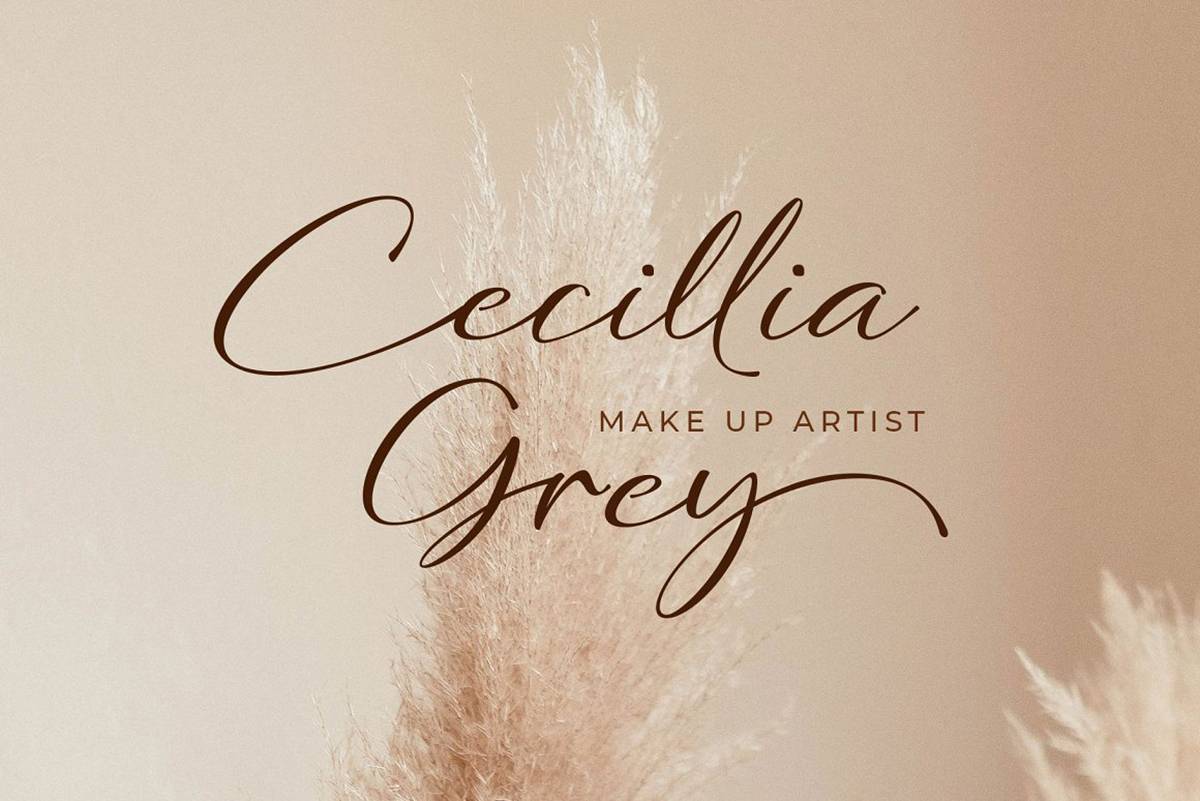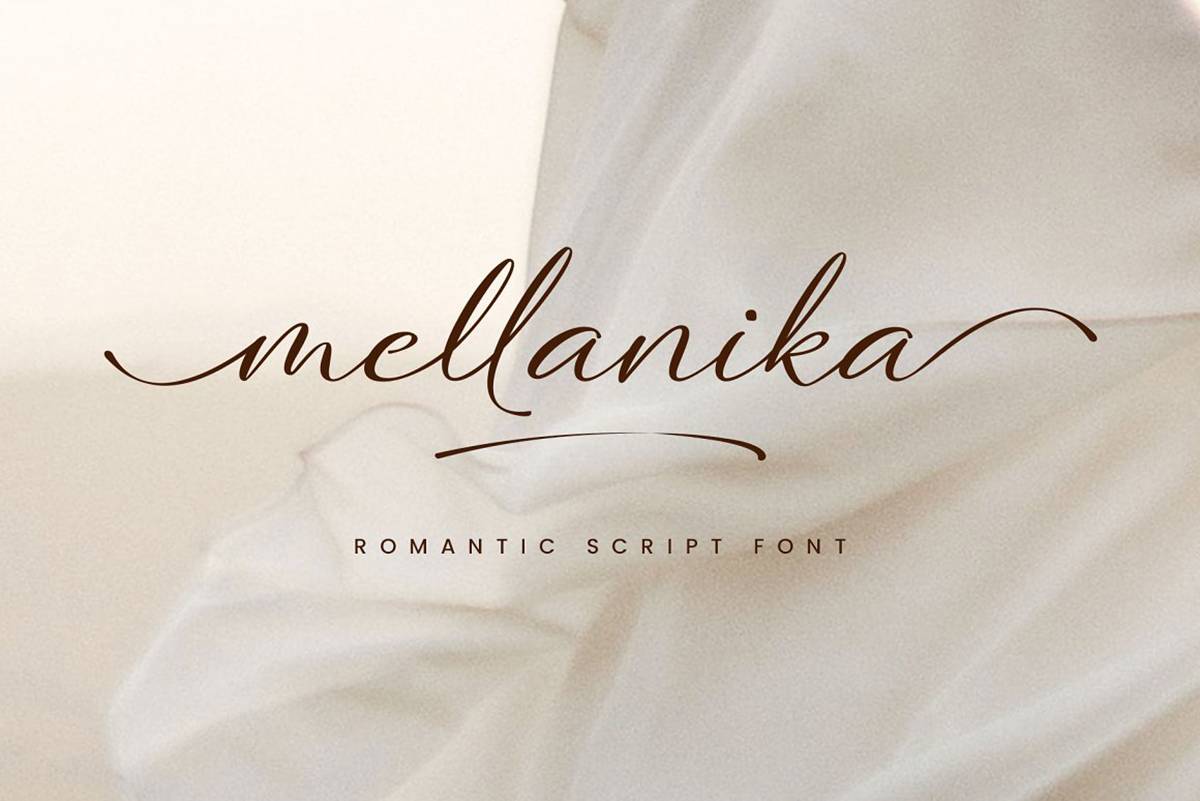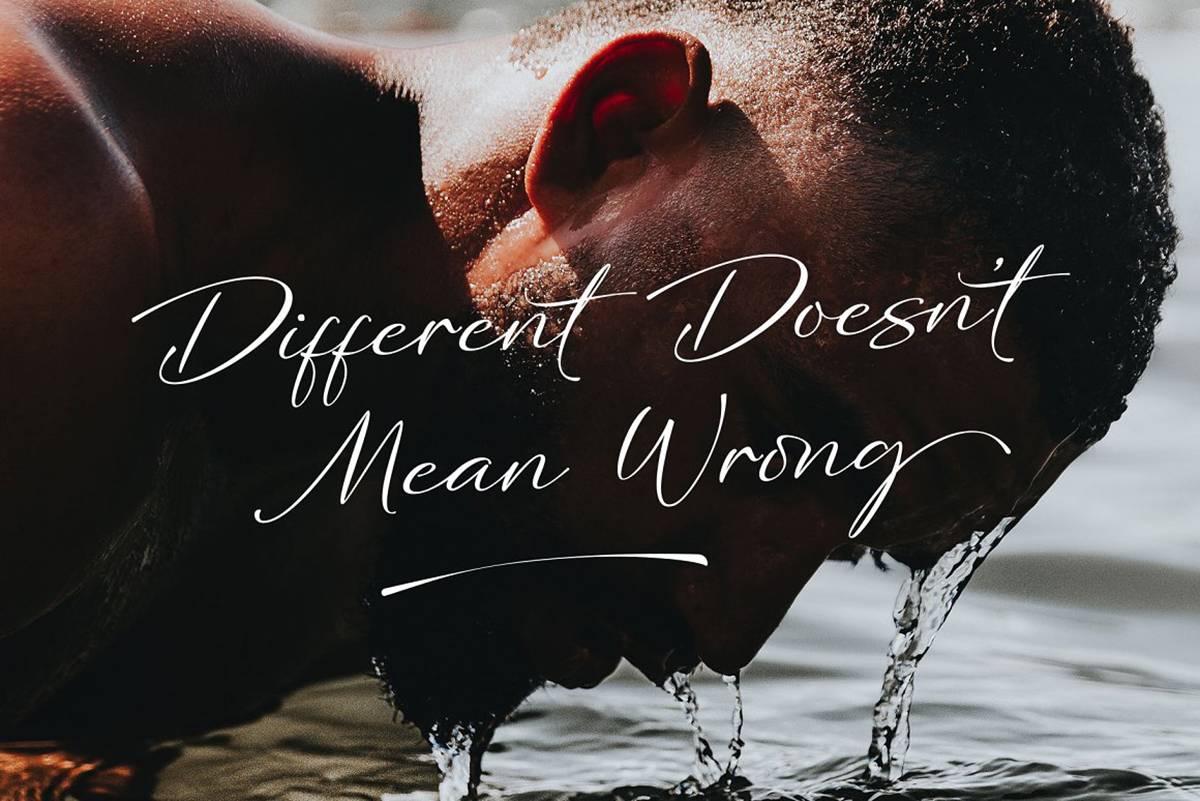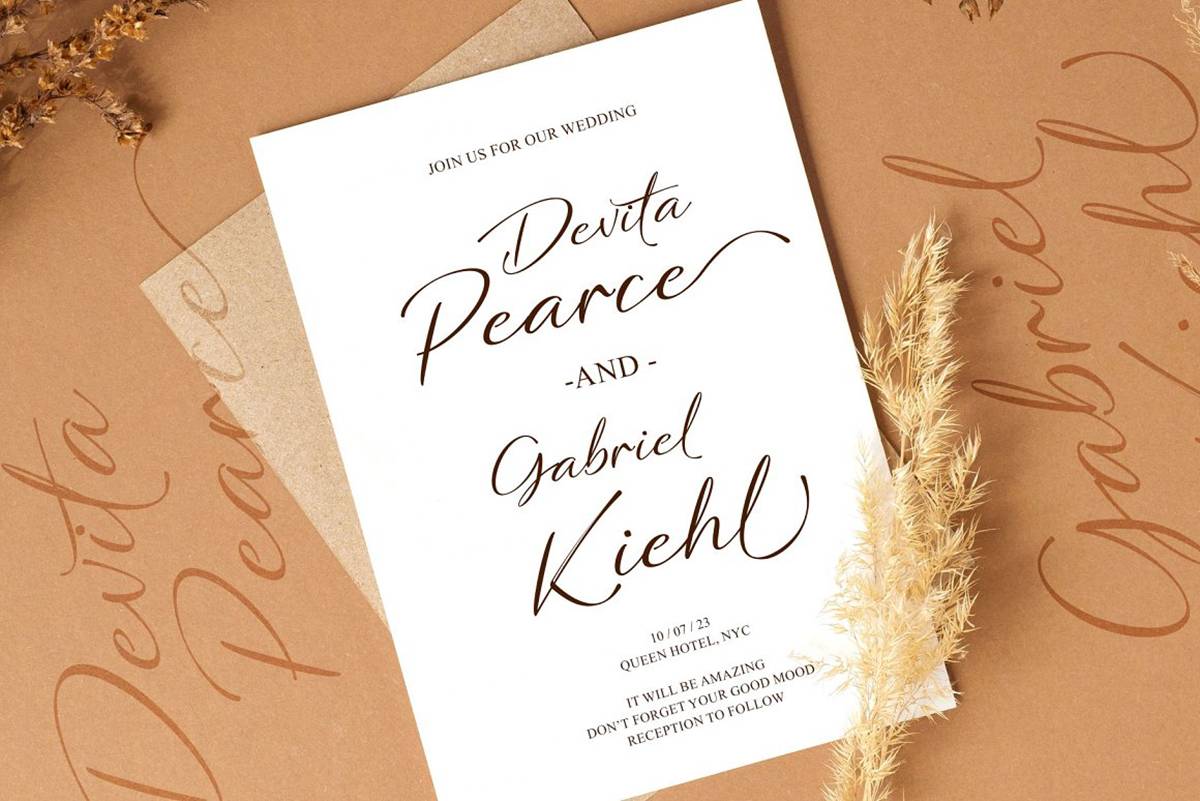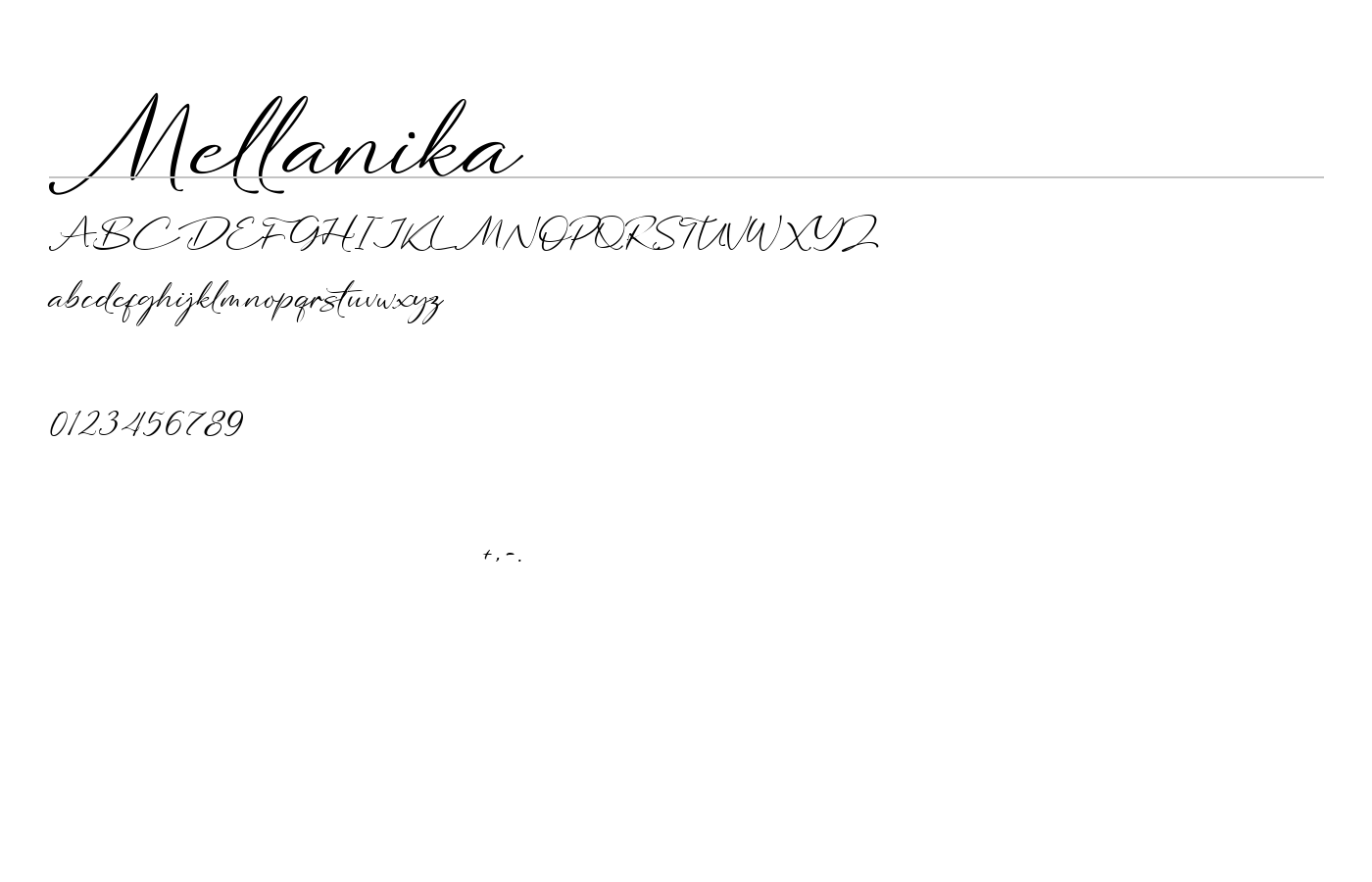
Mellanika is a graceful and elegant script font characterized by its thin, flowing strokes and high contrast that evoke a handwritten calligraphic style. Its delicate, slightly condensed letterforms with fluid connections and subtle flourishes give it a refined and personal touch, making it ideal for sophisticated branding, invitations, and feminine design projects that seek a stylish and intimate feel. This font shines best in logos, elegant headlines, and decorative text where a touch of natural elegance and charm is desired.
Mellanika Font
About Mellanika Font